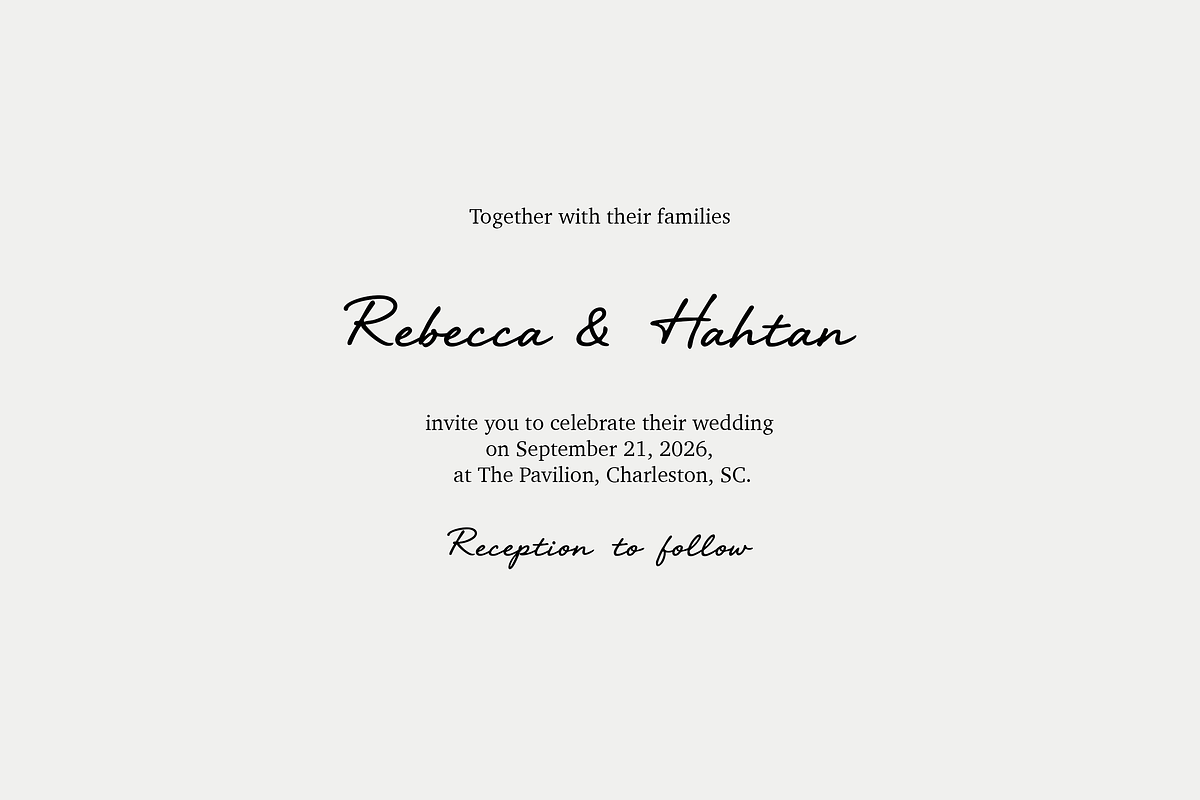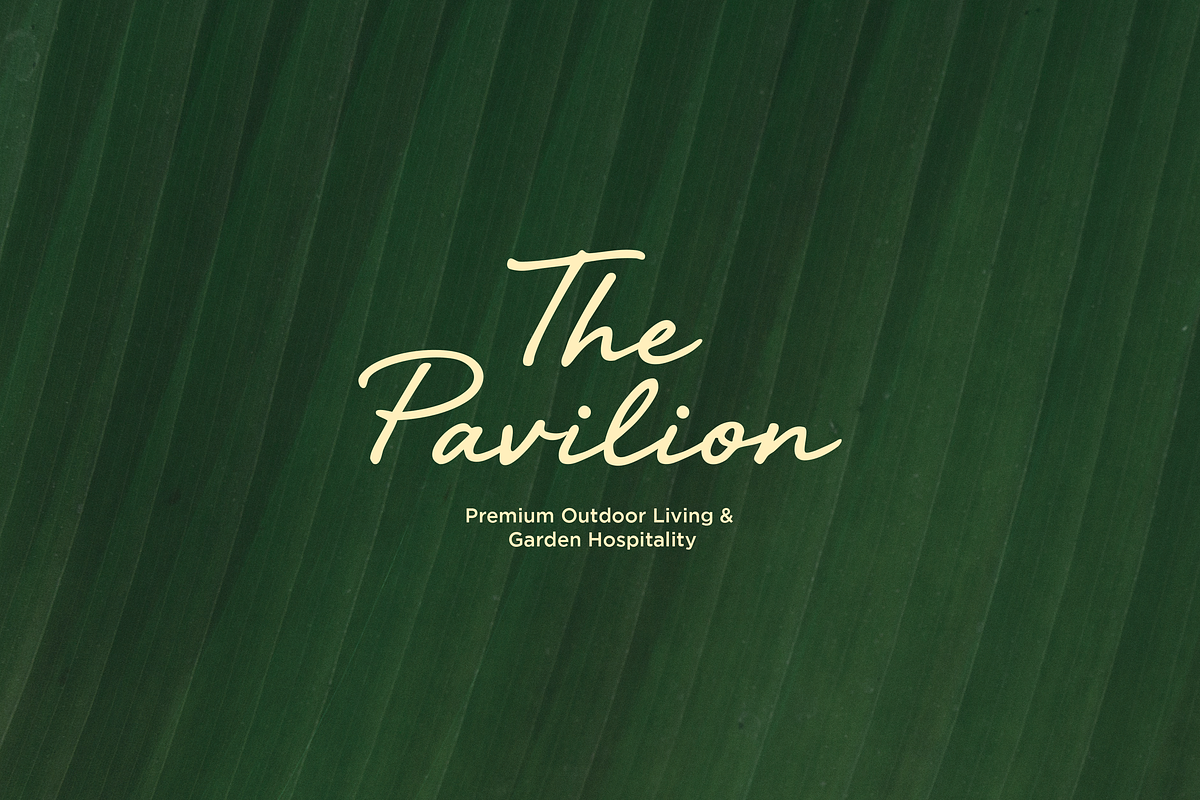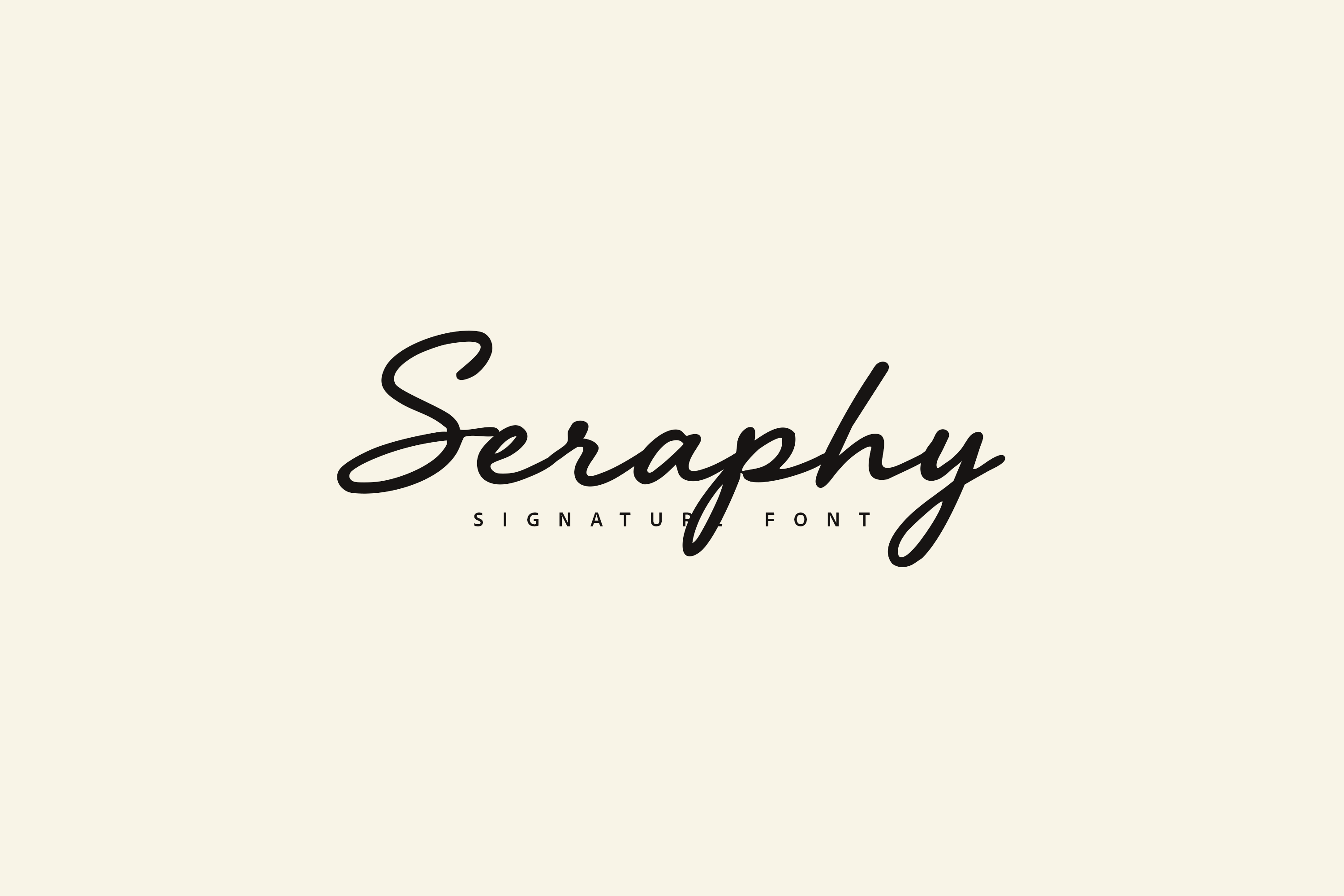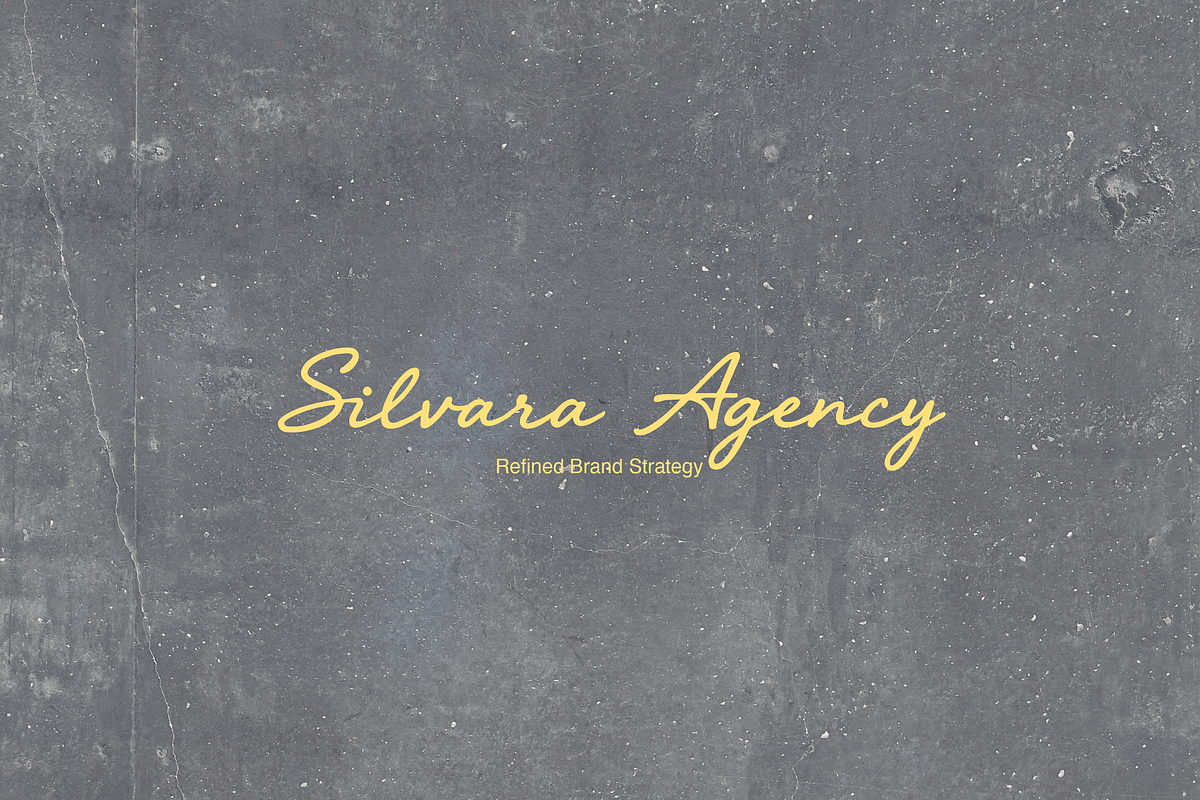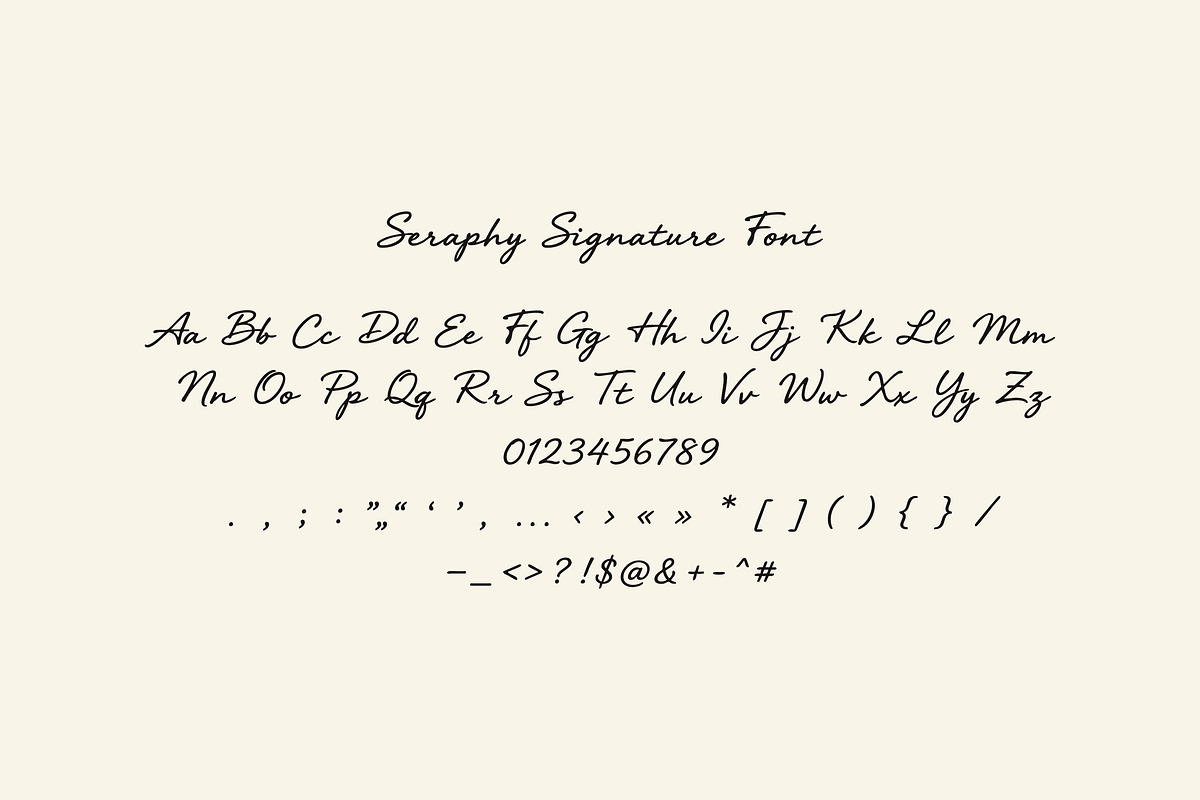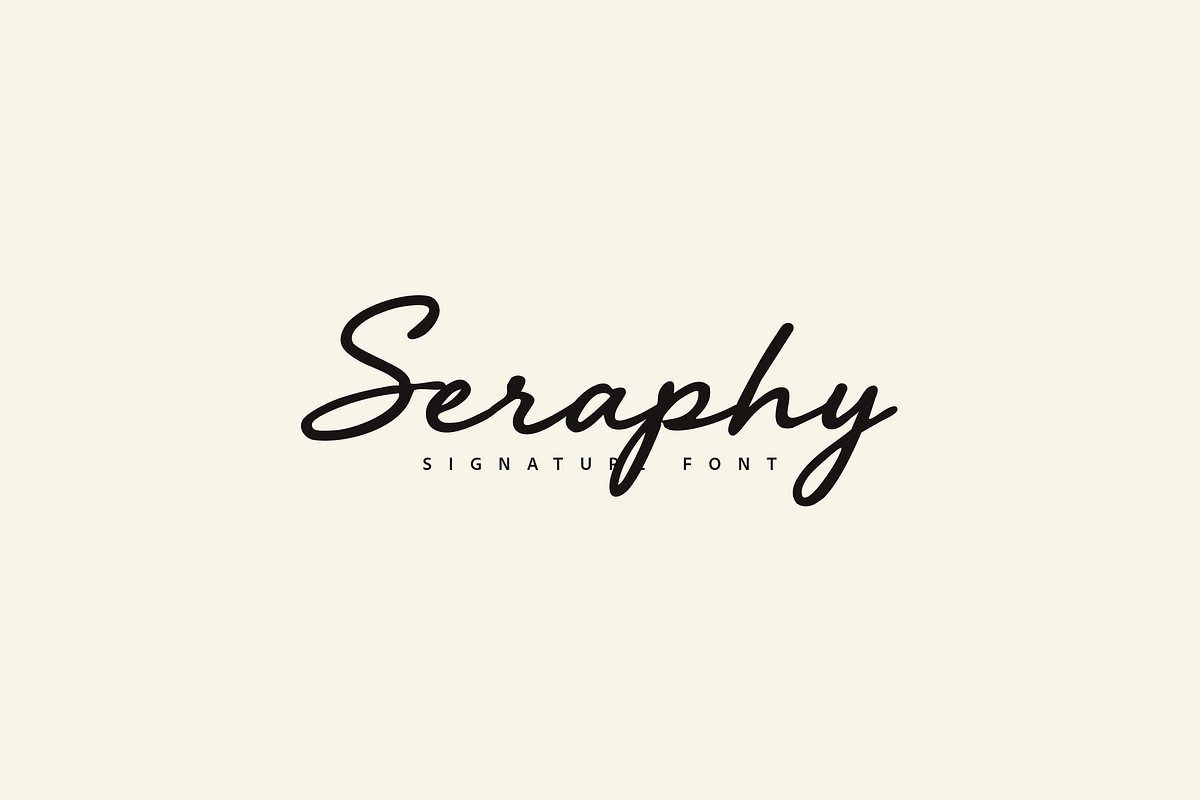
Seraphy Script Font
Seraphy is an elegant handwritten signature font with soft, flowing curves and a refined romantic style. Perfect for wedding invitations, branding, logos, packaging, social media, quotes, and feminine design projects.